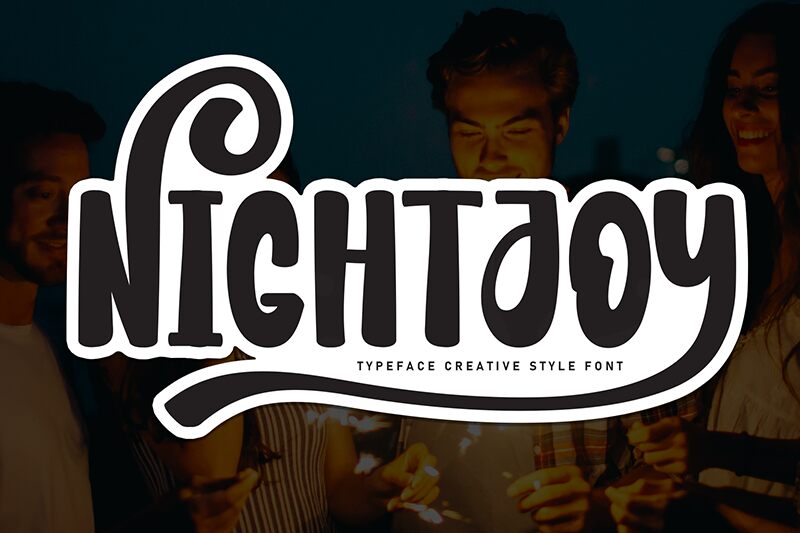
Nightjoy font by Scratchones is a lovely, playful free cartoon font with a retro-inspired ornamental visual. Each letter preserves balanced strokes and dynamic details that are intriguing and inspiring in their own way. Nightjoy’s expressive body makes the font a versatile decorative tool for projects that require some extra emphasis and liveliness.
Projects that involve creating headlines, branding, labels, posters, magazine covers, cartoon titles, and package design can all make use of this stunning free font. The bold characters will highlight and decorate any of these products as per your design needs.